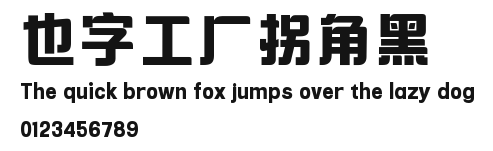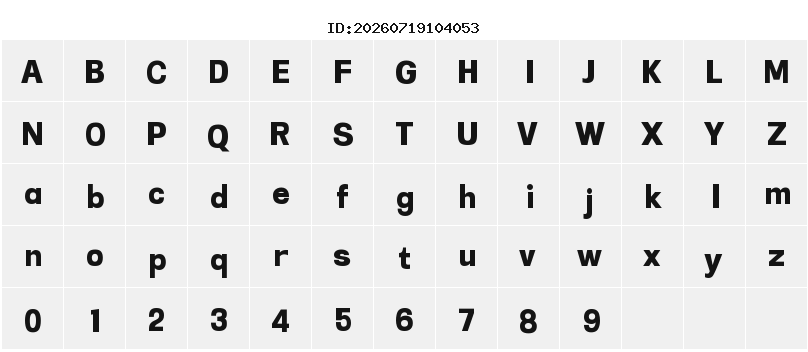
也字工厂拐角黑 Preview
• Font Name: 也字工厂拐角黑
• Full Font Name: 也字工厂拐角黑
• Manufacturer: 也字工厂
About 也字工厂拐角黑.ttf
也字工厂拐角黑.ttf is a modern, elegant sans-serif font designed for ultimate readability and visual harmony. Perfect for branding, headlines, web design, and print materials.